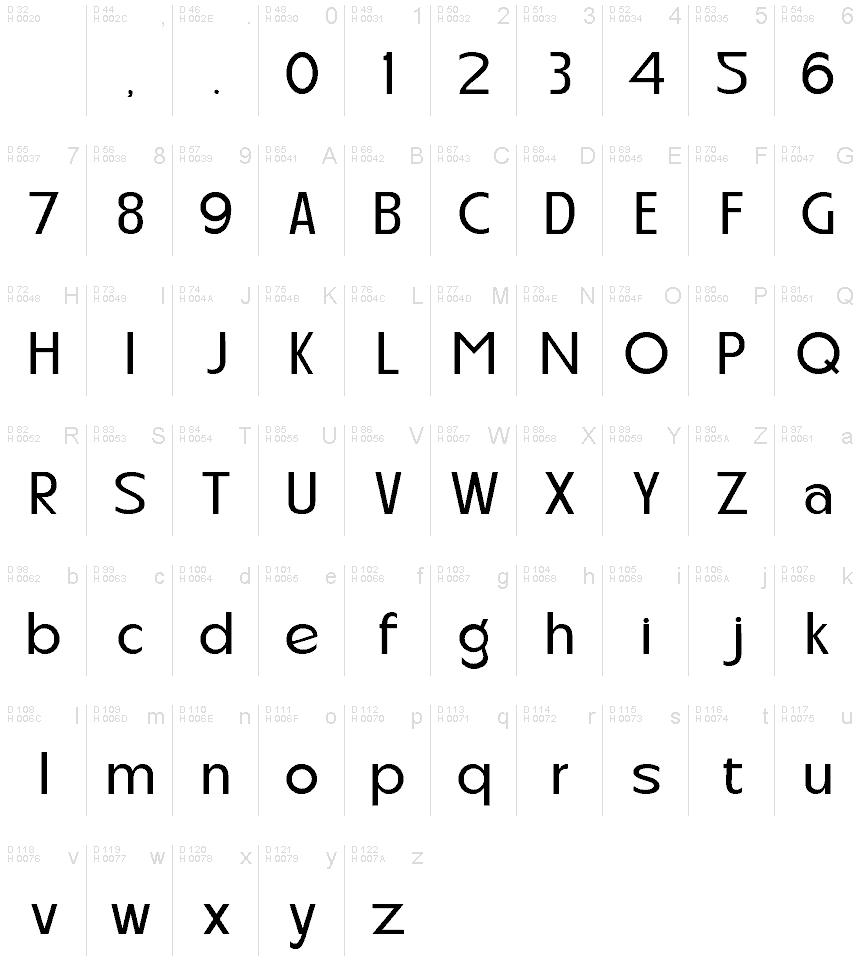
Carltine Regular
Carltine font Muksal Creative combines modern and minimalist elements in a seamless way. This geometric sans serif typeface is clean, exceptionally readable, and professional in all its senses. It will therefore be a valuable addition to any design kit.
The free font can be used on websites, blogs, posters, business cards, logo designs that require text additions among others. Carltine would also look good on packaging designs with more of clean label style too. Other uses like magazine titles or section headers could also be considered for this typeface as well.